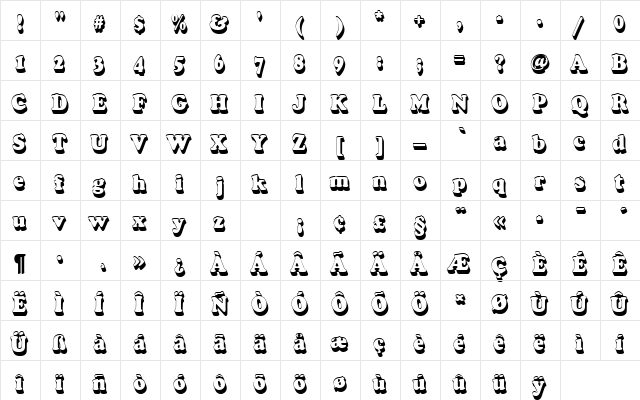
CooperBlaDConSh1 Regular Font Preview
CooperBlaDConSh1 Regular
CooperBlaDConSh1 Regular Font Details
Design Context for CooperBlaDConSh1 Typeface
CooperBlaDConSh1 is a composed and adaptable typeface that performs quietly and consistently across a wide range of design contexts.